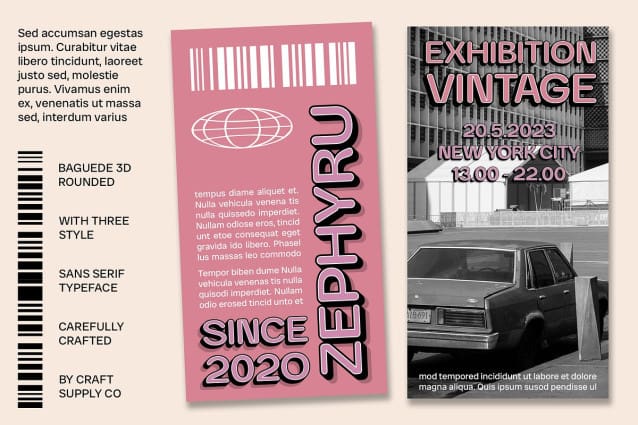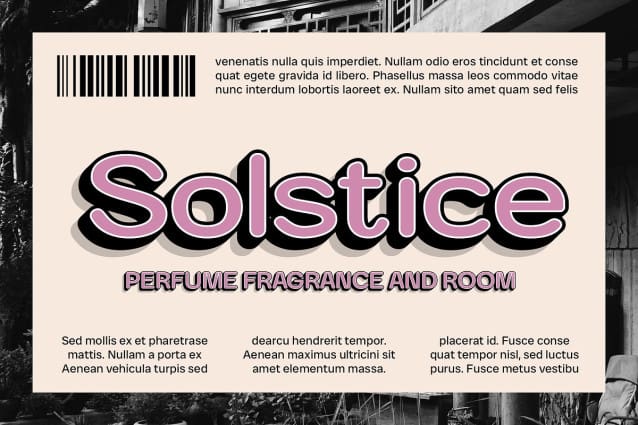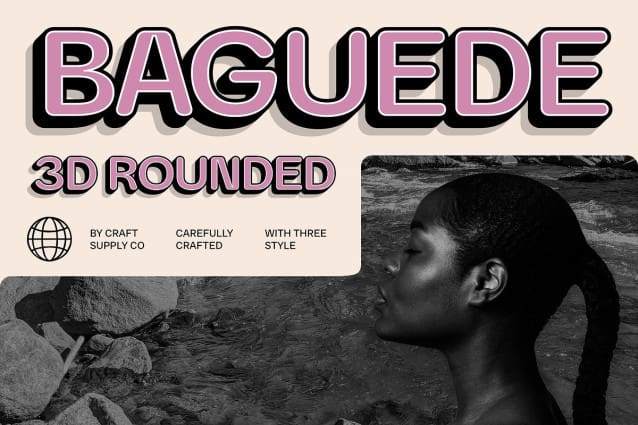
Baguede Rounded 3D Font
Baguede Rounded 3D Font is a modern sans-serif font featuring a blend of grotesque and rounded shapes enhanced with a dynamic 3D effect. Its clean lines and soft, rounded edges offer a contemporary look that balances professionalism with approachability. This modern design ensures the font makes a strong, fresh impression while maintaining a friendly and inviting feel.
Standout Visual Dimension The 3D effect of Baguede Rounded adds significant visual depth and dimension, making it ideal for applications where a bold and engaging presence is essential. Whether used for logo design, headlines, or web graphics, the font’s dimensionality ensures it stands out and captures attention. This effect enhances the font’s versatility, providing a striking and memorable visual impact.
Perfect for Branding and Marketing Baguede Rounded 3D excels in branding, marketing materials, and UI design, where a fresh and energetic impression is desired. Its modern and playful vibe makes it a great choice for projects that need to convey both innovation and friendliness. Ideal for creating standout logos, compelling headlines, and engaging digital graphics, this font adds a touch of contemporary flair to any design.